Niklas Ekholm
Prodding at sand is as elemental as it gets, a human touching the world, the self flowing outward.
The finger-shaped hollow becomes an emptiness, a joyous vessel, a selfless form.
Cast it in metal, and the finger returns, renewed and other.
There is nothing quite like pouring liquid metal. And that reassuring weight of the solid cast objects.
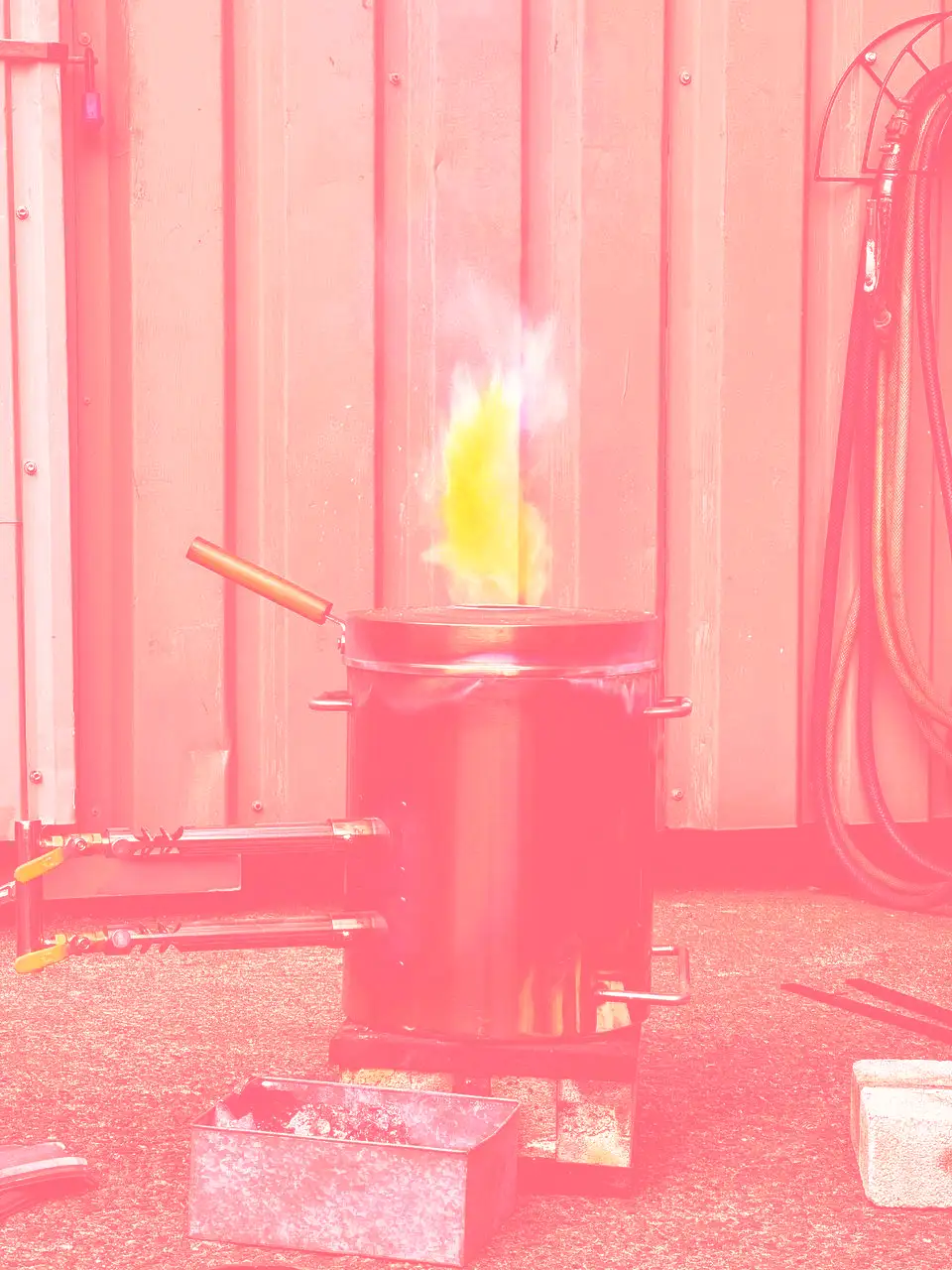
For years I just lived off scrap metal from the nearby junkyard. Bake together aluminium from bikes, plumbing, and machine parts — you get an ignoble porridge resulting in wonky objects of questionable structural integrity.
While traditional type metal has a lower melting point and would be easier to work with, the ubiquity of aluminium and lighter weight makes it more practical for large letters.
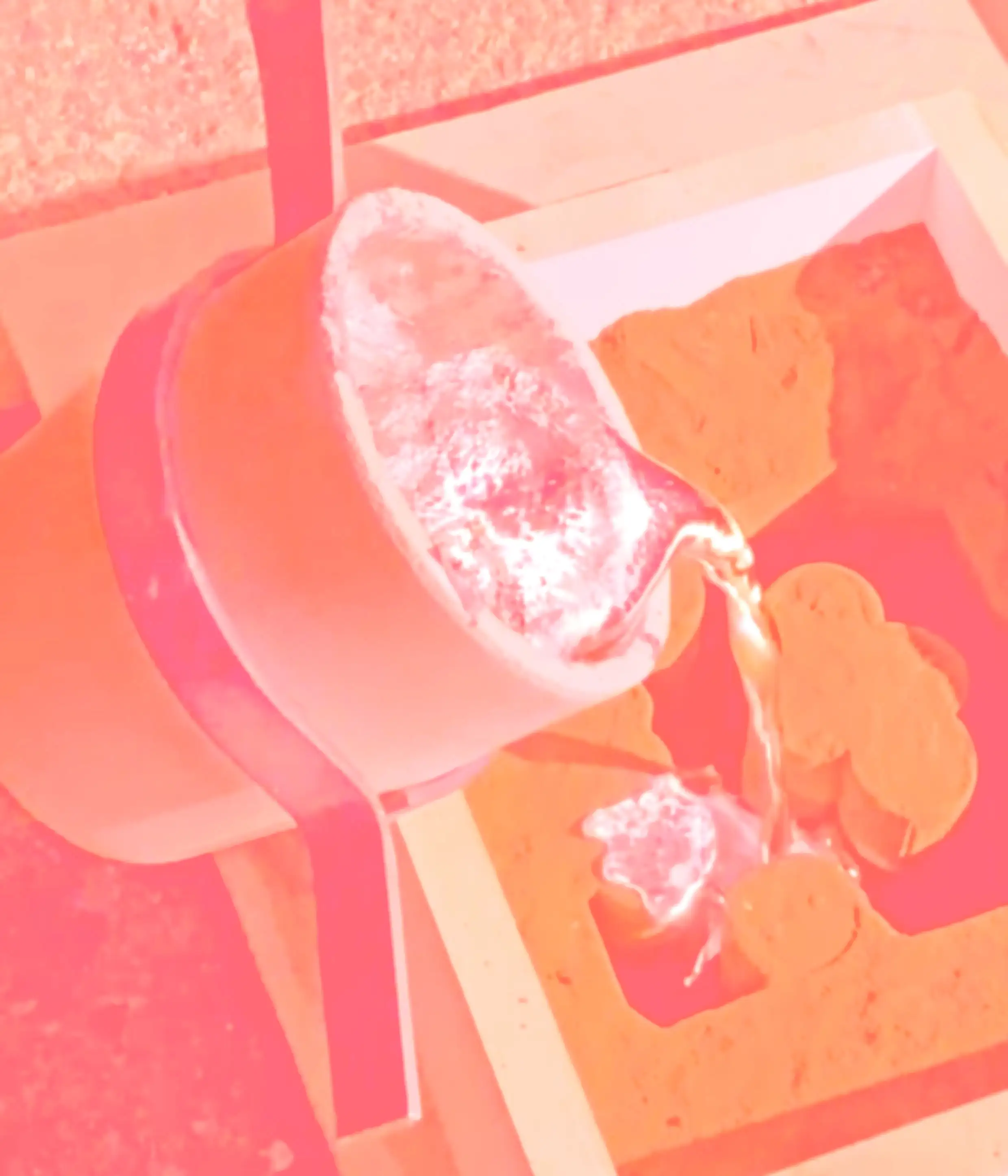
After the defunct state-owned printing press auctioned off all remains, I found myself in possession of a cubic meters worth of discarded aluminium braces for typesetting. What a fitting reuse for those grimy black pieces of dented metal, I thought. An afterlife, a freedom from decades of steadfast service trapped in highly specialised rectilinear forms, now they would flow again, and be allowed to settle in a more spontaneous form.
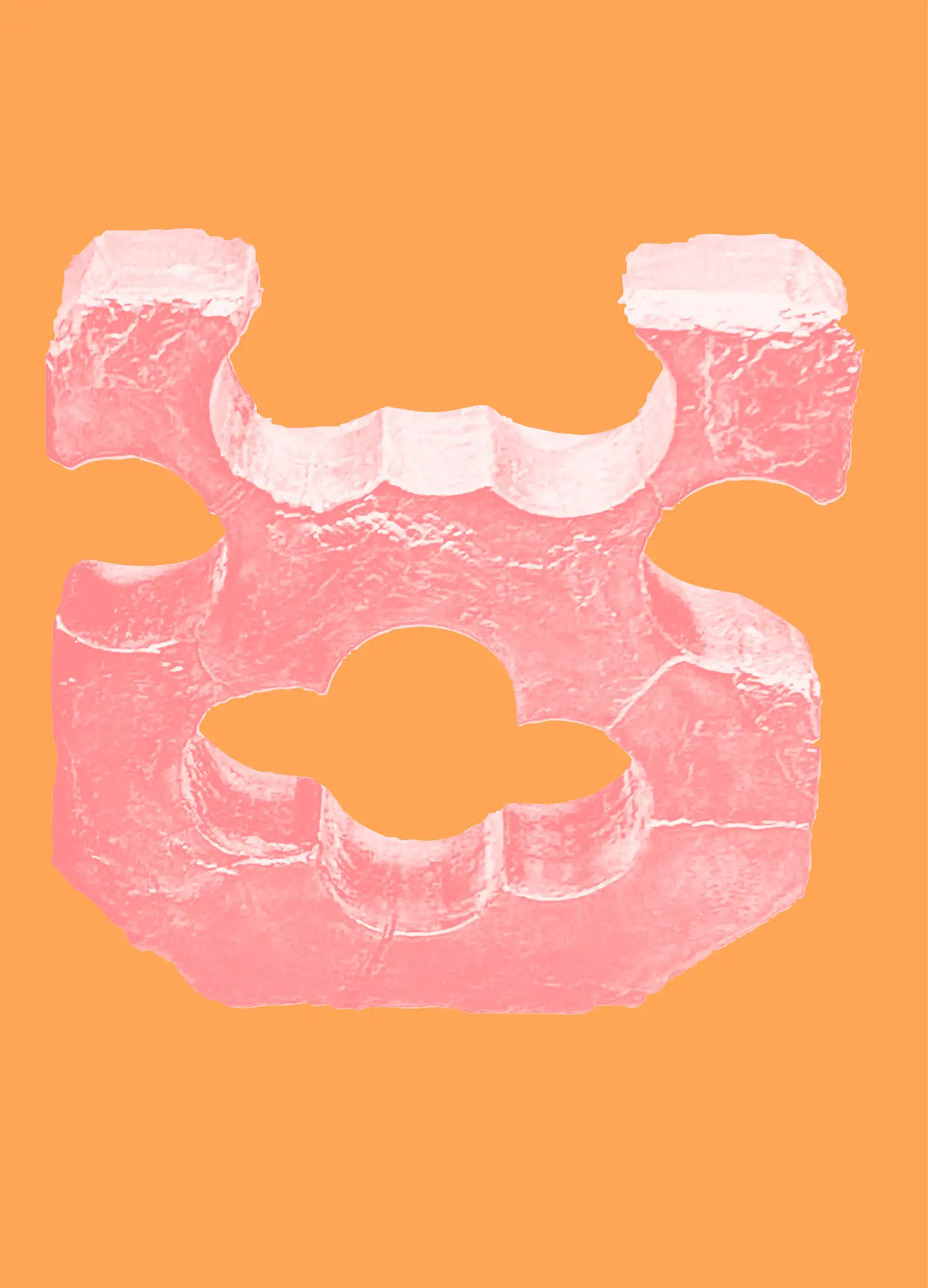
Typeface: Light Metal Foundry
Designer: Niklas Ekholm